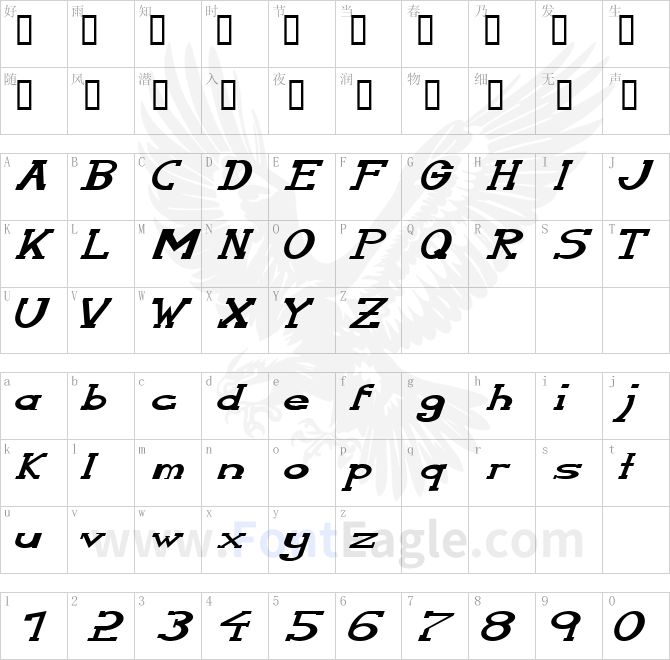
- Font name:Serifonwide
- Font Subfamily ID:+++Serifon Bold wide italic+++
- Font Full Name:Serifonwide Italic
- Font Version:Fontmaker 2.2
- Postscript:SerifonwideItalic
- Font Copyright:designed by Dieter Schumacher © 1998-1999